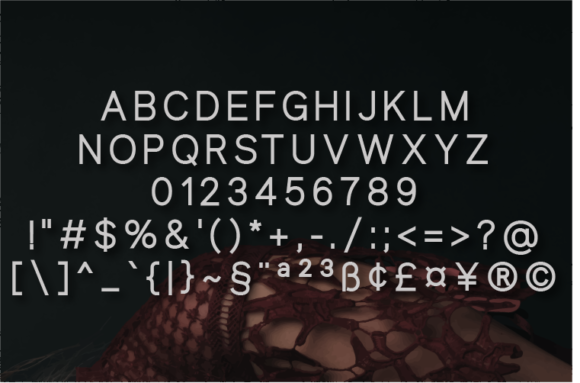
Introducing Colbey Extra Bold: Elevate Your Designs with Elegance and Sophistication
In the world of typography, fonts play a crucial role in conveying messages, expressing emotions, and creating lasting impressions. For designers and crafters seeking a modern, elegant, and versatile font, Colbey Extra Bold is an exceptional choice. This stunning sans serif font boasts soft edges, clean lines, and a harmonious appearance, making it perfect for a wide range of applications, from branding and logos to web design and more.
The Design Philosophy Behind Colbey Extra Bold
Colbey Extra Bold was crafted with a meticulous attention to detail, blending stylized geometry with a touch of sophistication. Its soft edges add a subtle warmth to the font, setting it apart from more traditional sans serif fonts. This elegant contemporary font is designed to be both visually striking and highly legible, ensuring that your message is conveyed with clarity and impact.
Key Features of Colbey Extra Bold
- Elegant and Contemporary Design: Colbey Extra Bold boasts a modern aesthetic that will elevate your designs and give them a fresh, current feel.
- Soft Edges: The subtle rounded edges of Colbey Extra Bold add a touch of warmth and sophistication, making it perfect for designs that require a more approachable feel.
- Clean and Stylized Geometry: The font’s geometric lines and curves are carefully crafted to create a harmonious and balanced appearance.
- Versatile: Colbey Extra Bold is suitable for a wide range of applications, including branding, logos, web design, and more.
Why Choose Colbey Extra Bold for Your Designs?
Whether you’re a designer, crafter, or entrepreneur, Colbey Extra Bold offers numerous benefits for your creative projects:
- Enhance Your Brand’s Visual Identity: Use Colbey Extra Bold to create a consistent and recognizable visual brand that stands out from the competition.
- Elevate Your Web Design: This font is optimized for digital use, ensuring that your website or blog looks modern, elegant, and highly professional.
- Create Stunning Logos and Graphics: Colbey Extra Bold’s unique design makes it perfect for creating eye-catching logos, social media graphics, and other visual elements.
- Streamline Your Workflow: With its clean lines and high legibility, Colbey Extra Bold saves you time and effort in designing and editing your content.
Tips for Using Colbey Extra Bold Effectively
To get the most out of Colbey Extra Bold, consider the following tips:
- Pair it with Complementary Fonts: Combine Colbey Extra Bold with other fonts to create visual interest and hierarchy in your designs.
- Experiment with Colors: Take advantage of Colbey Extra Bold’s versatility by using it with different colors, textures, and backgrounds.
- Use it for Headlines and Titles: Colbey Extra Bold is perfect for grabbing attention and making a statement – use it for headlines, titles, and other prominent text elements.
Colbey Extra Bold is an exceptional font that offers a perfect blend of elegance, sophistication, and versatility. With its soft edges, clean lines, and harmonious appearance, it’s an excellent choice for designers and crafters seeking to elevate their creative projects. Whether you’re working on branding, web design, or graphics, Colbey Extra Bold is sure to make a lasting impression.
Discover the full potential of Colbey Extra Bold and take your designs to the next level. Explore its features, experiment with different applications, and experience the power of elegant typography.